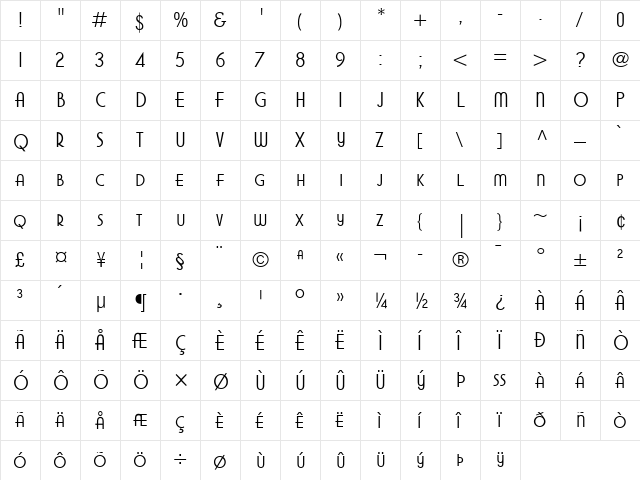
ModifiedGothic Regular
Design Context for ModifiedGothic Typeface
ModifiedGothic has the quiet confidence of well-executed sans-serif typography: versatile, unobtrusive, and dependable at any size.
Font Pairing: Works well alongside a characterful serif or display font that can carry the expressive load while ModifiedGothic handles the functional copy.
Pro Tip: Use ModifiedGothic for UI labels, navigation, and short-form body copy where clean legibility is the priority.